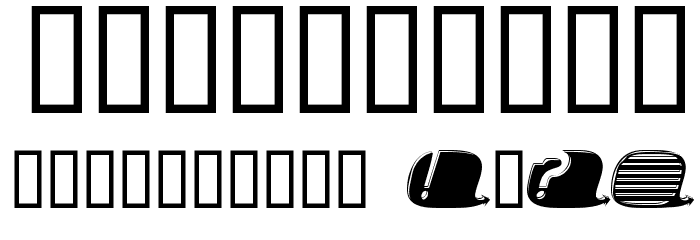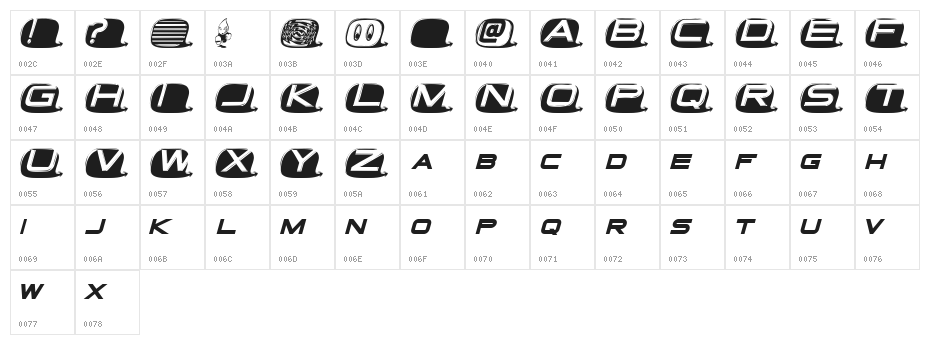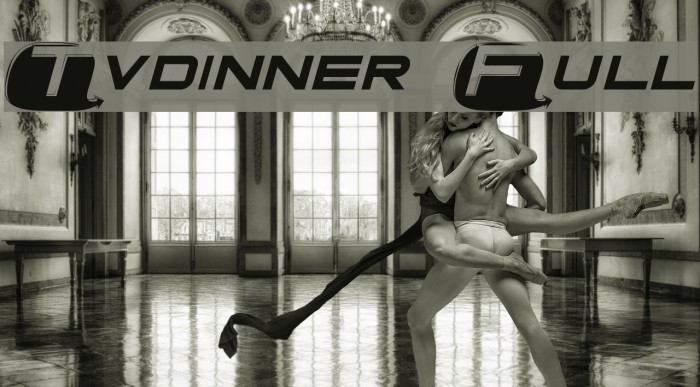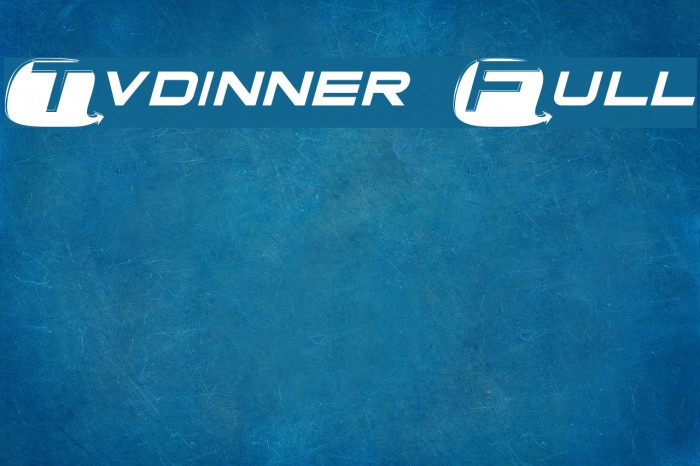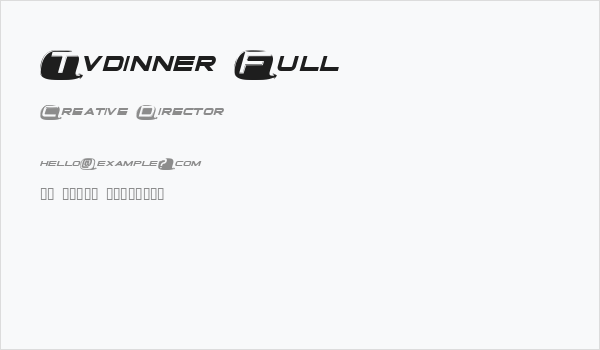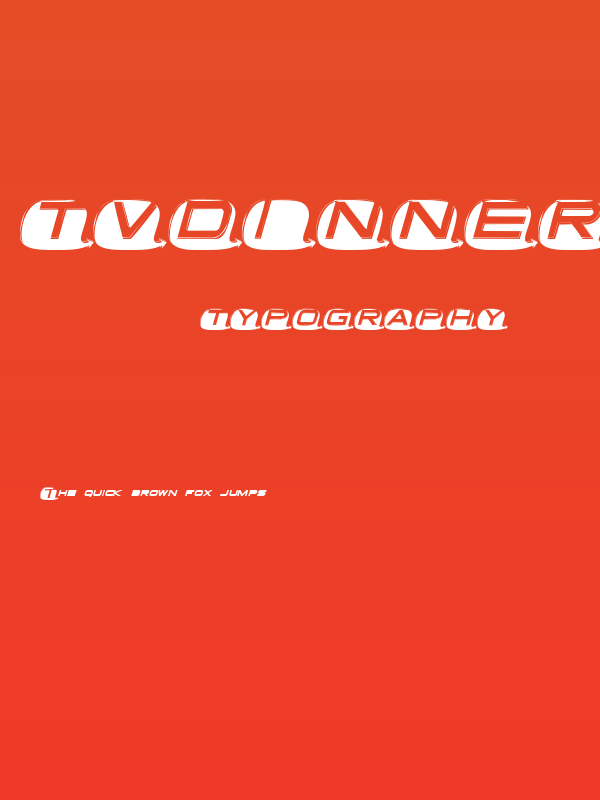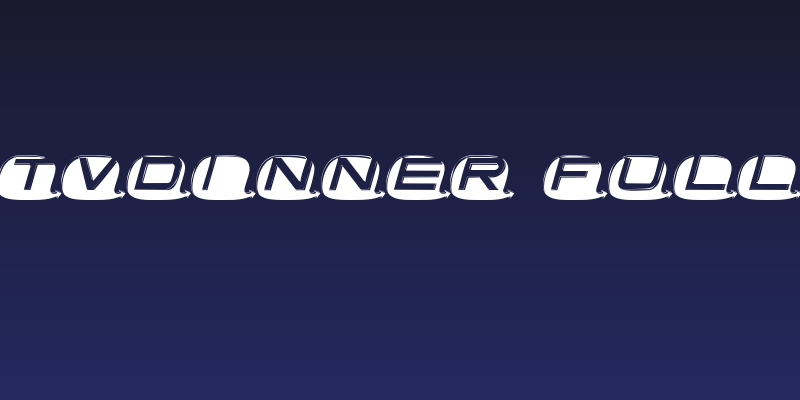
Tvdinner Full Font
Tvdinner Full Description
This font features a bold, dynamic style with a strong emphasis on geometric shapes and a futuristic aesthetic. The uppercase letters are characterized by their thick, rounded forms and a distinct shadow effect that gives a sense of depth and movement. The lowercase letters maintain the same boldness and geometric consistency, creating a cohesive look across the alphabet. The numbers and special characters follow the same design principles, ensuring uniformity throughout. This font's unique style makes it stand out, with its bold presence and modern appeal.
Proposed ProjectsIdeal for sci-fi themed projects, modern branding, video game titles, and dynamic posters.